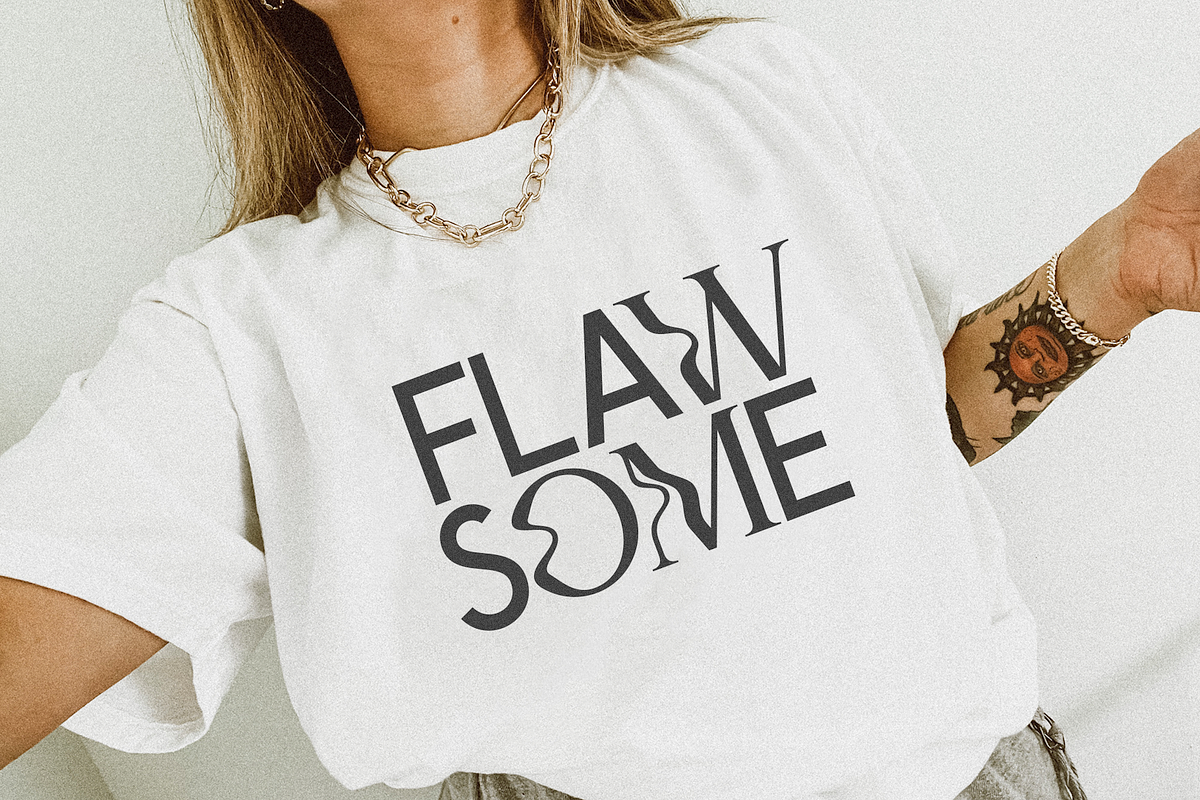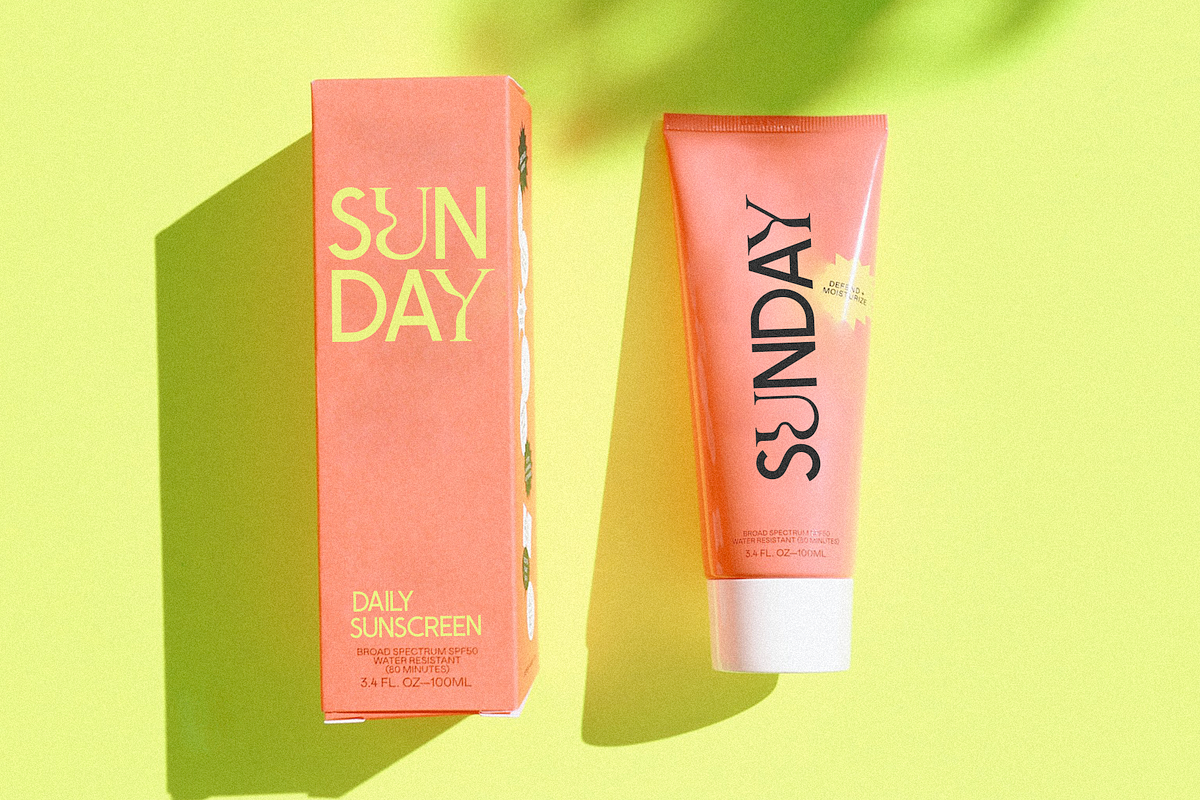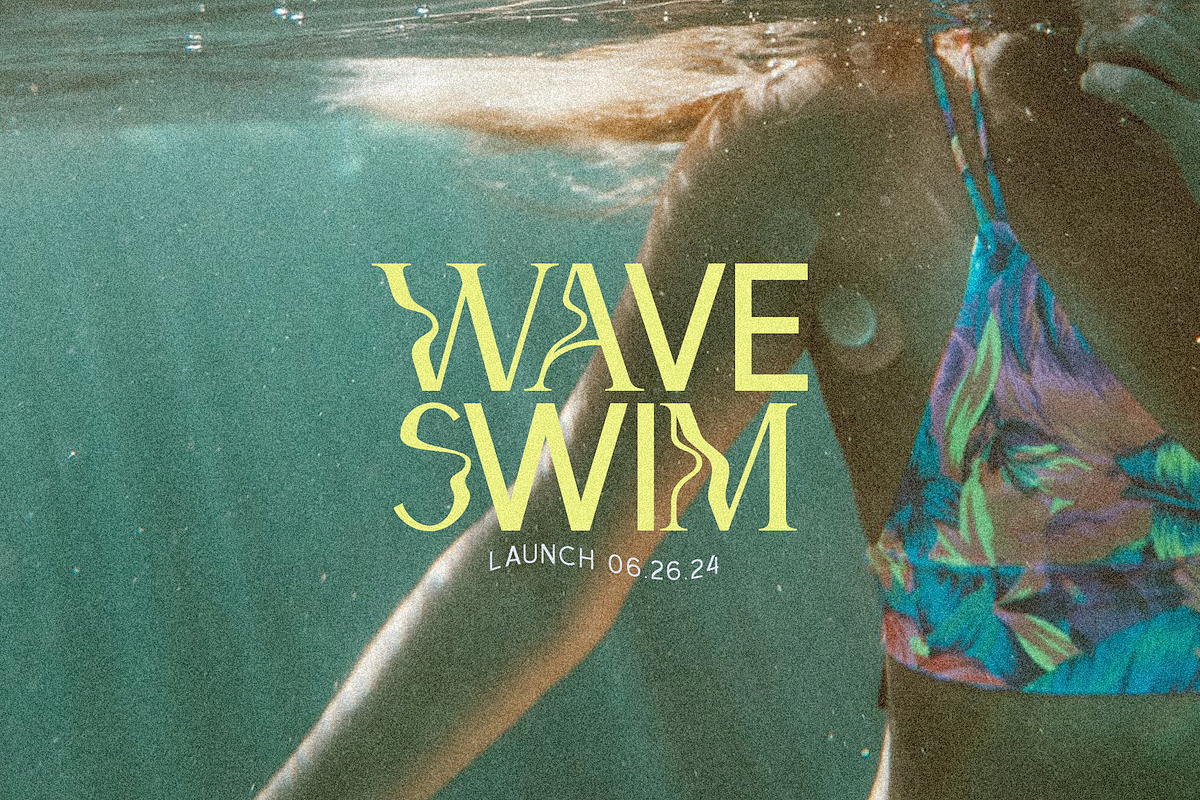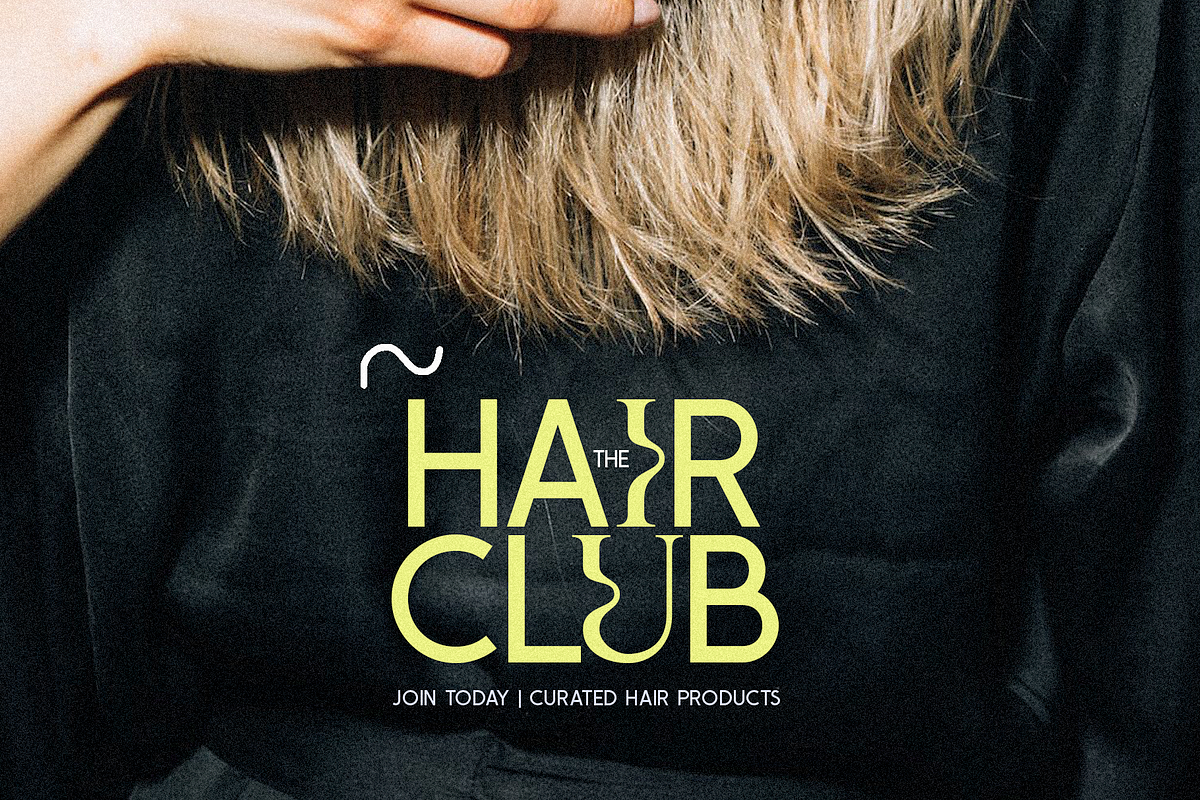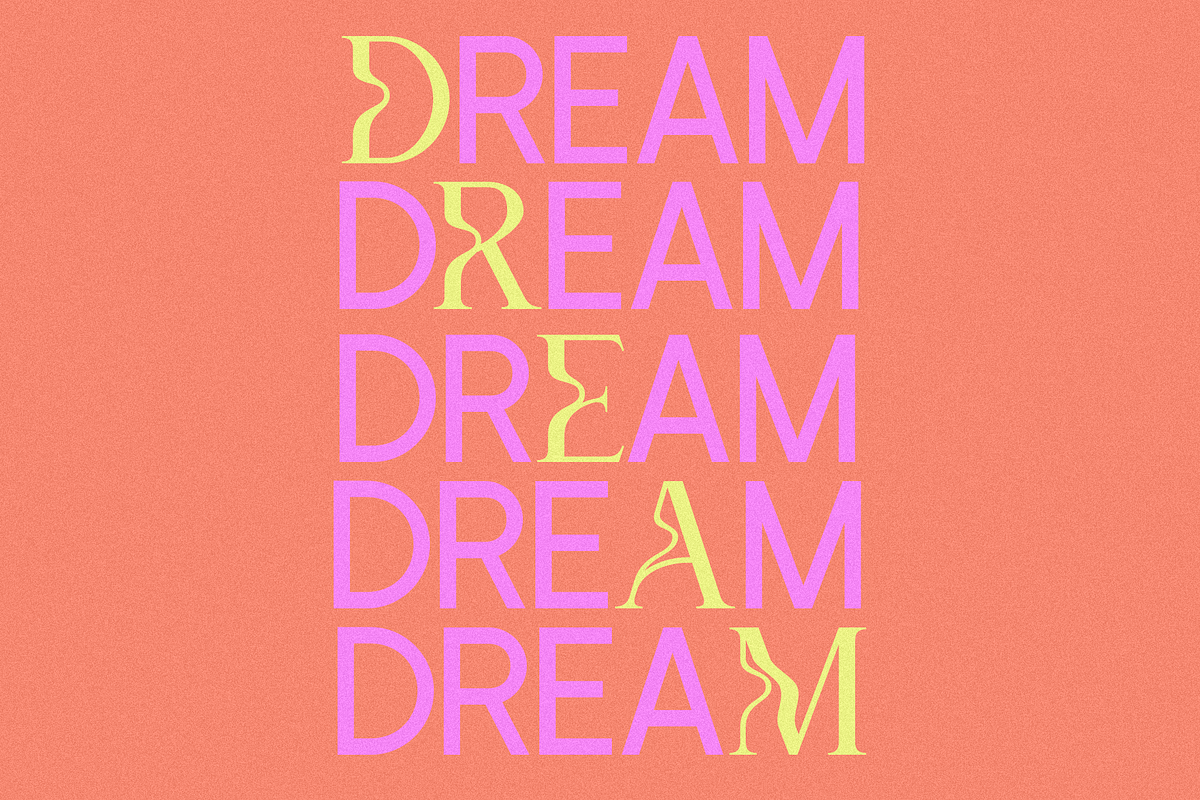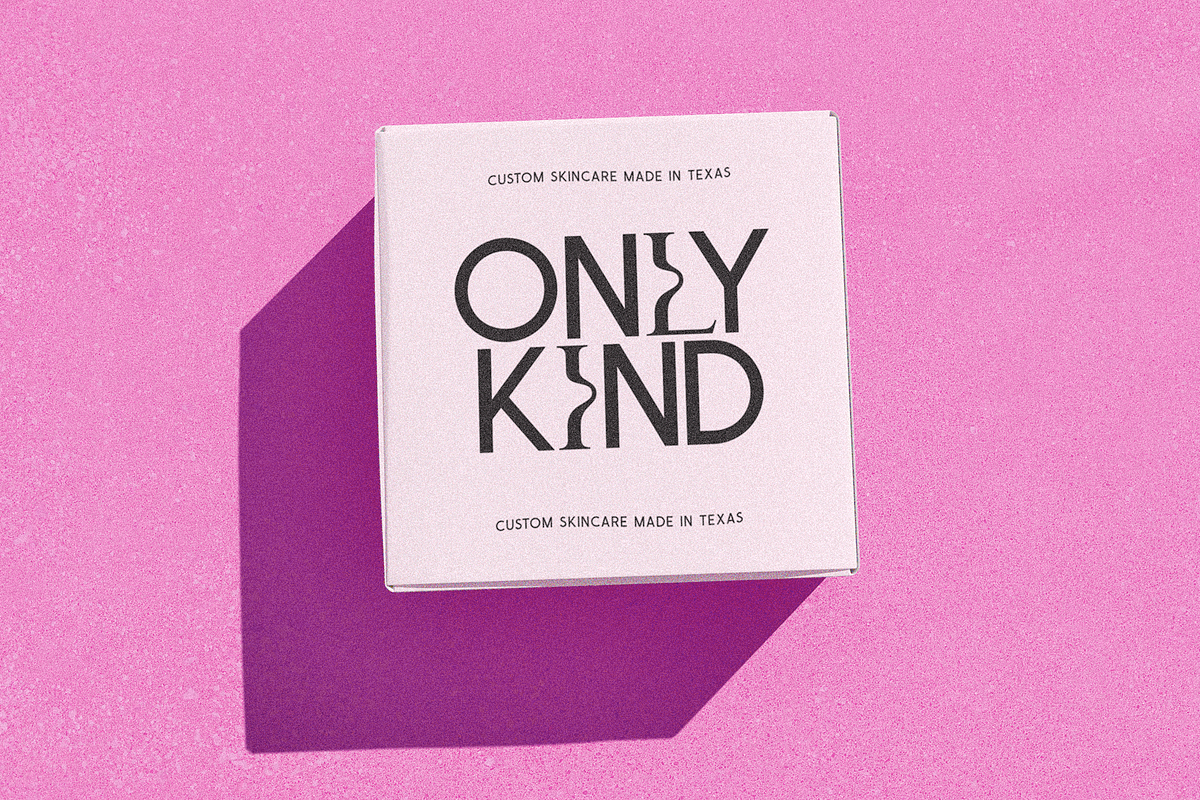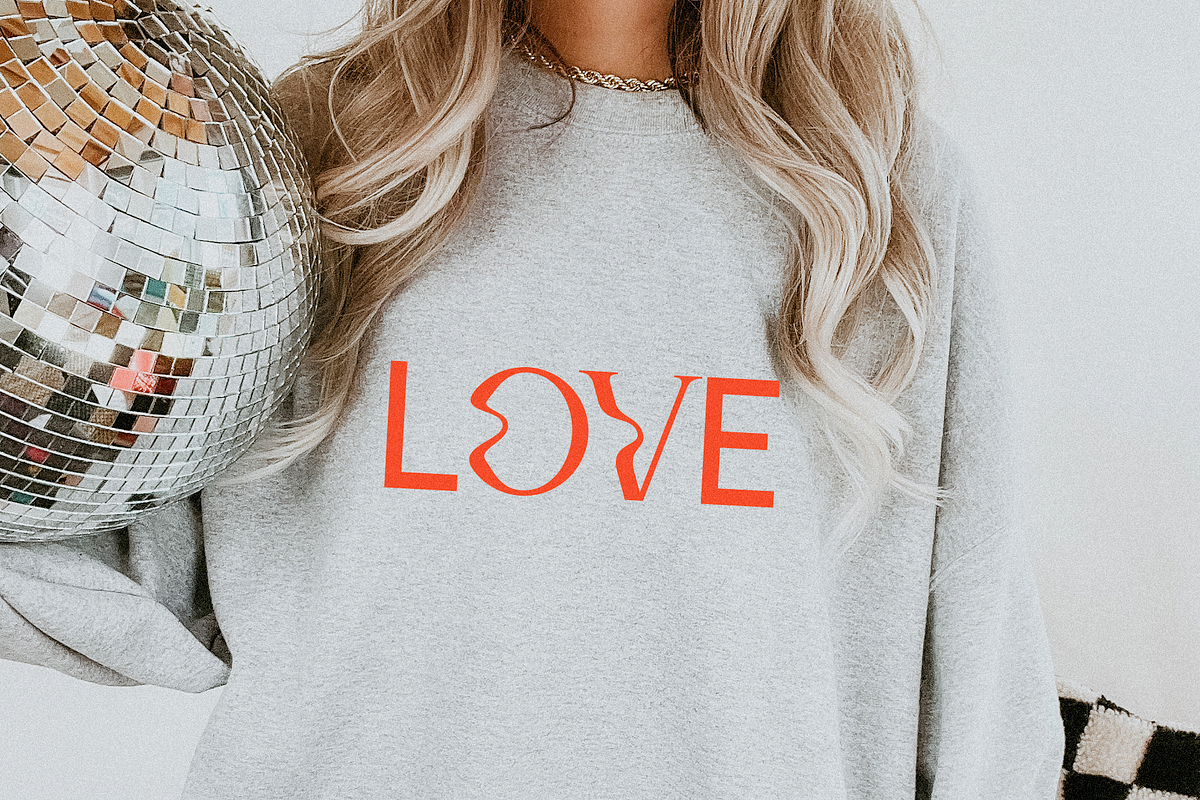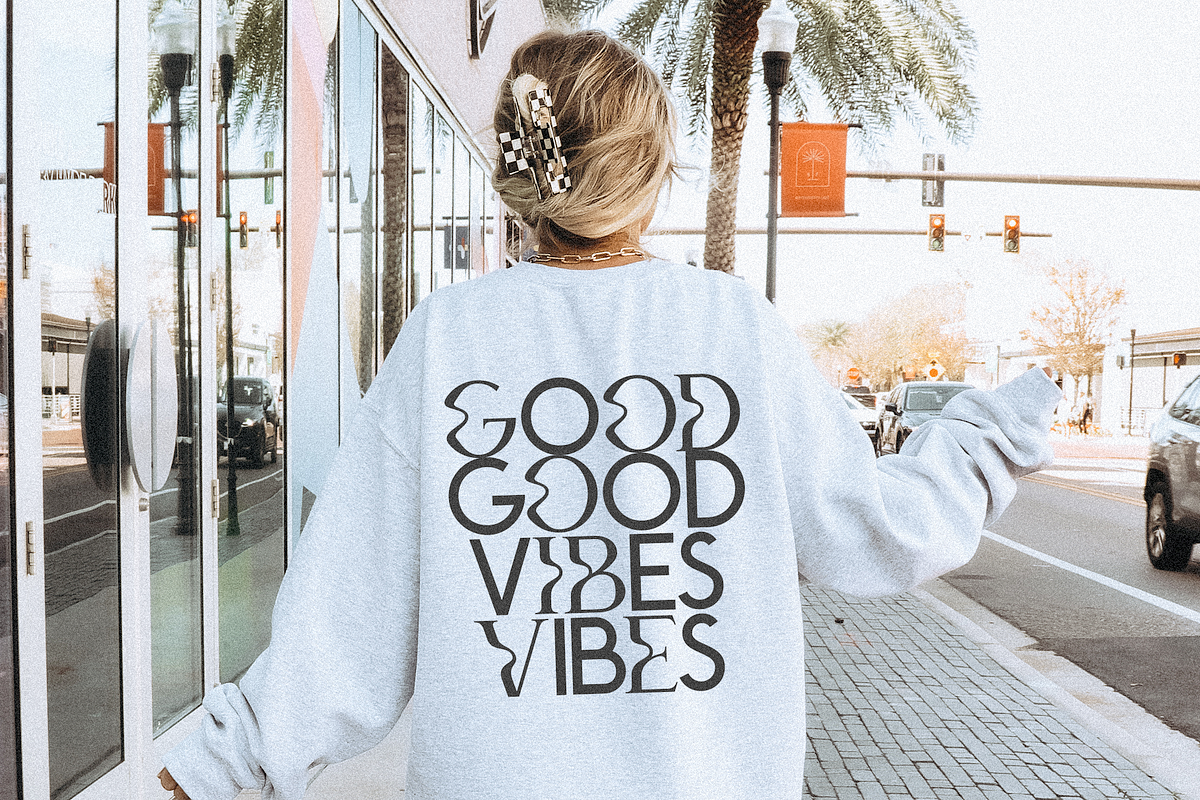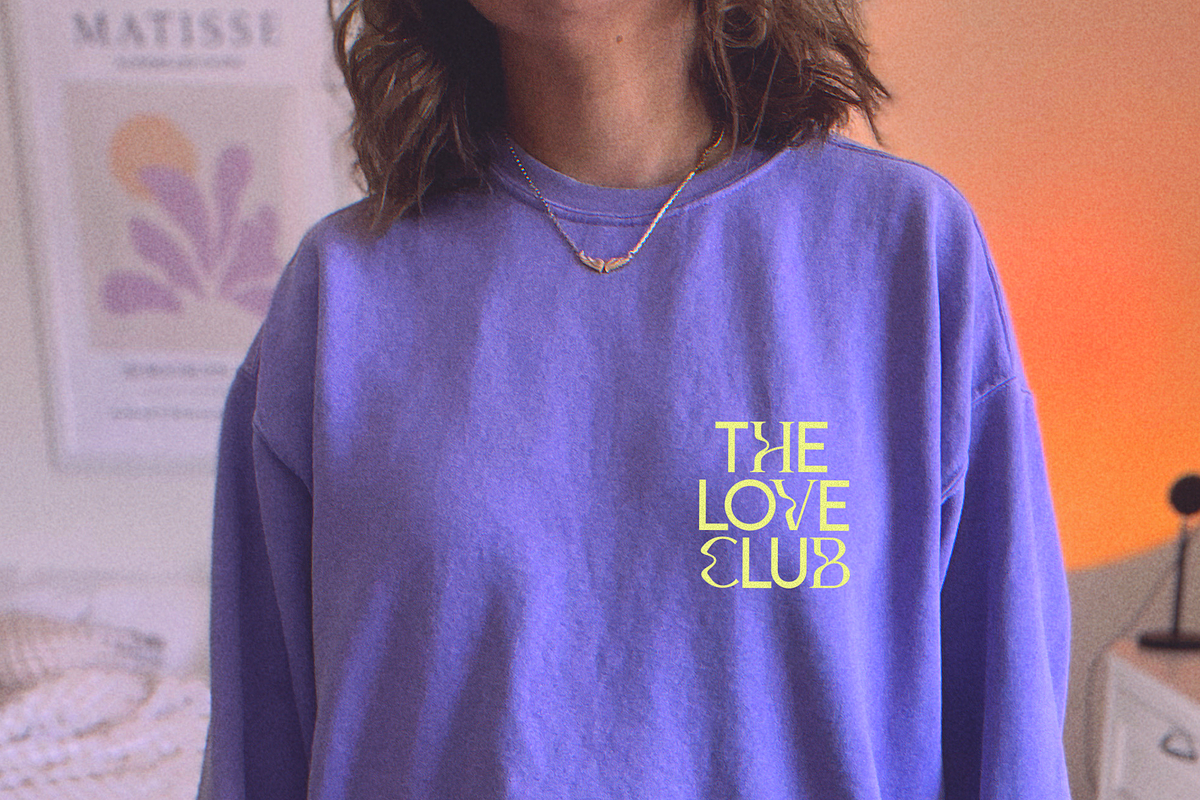
Only Good Vibes | Wavy Serif Font
Only Good Vibes is a wavy sans + serif duo.
This experimental font is perfect for modern designs, product packaging, advertisements, social media quotes, shirts, mugs, stickers, logos and more!
Mix and match the two styles!
- Capital Letters - Basic Sans
- Lowercase Letters - Wavy Serif